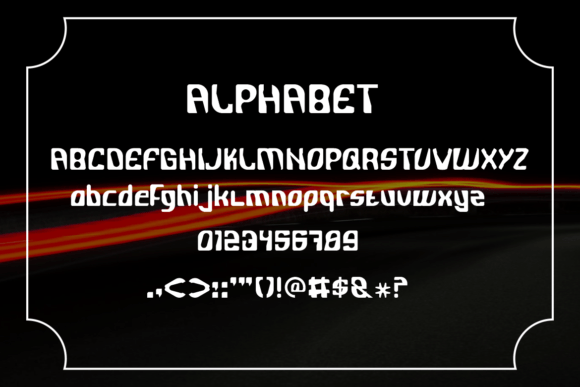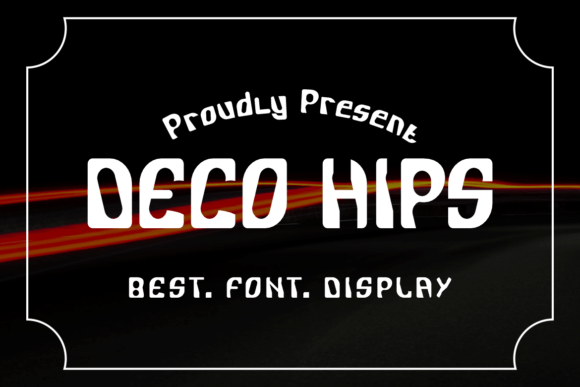
Introduction to Deco Hips Font
Deco Hips is a fun and unique display font.
Key Features of Deco Hips Font
Why Choose Deco Hips Font?
Deco Hips Font offers exceptional quality and versatility, making it a valuable addition to your design toolkit. Whether you’re creating for personal projects or commercial use, Deco Hips Font delivers professional results.